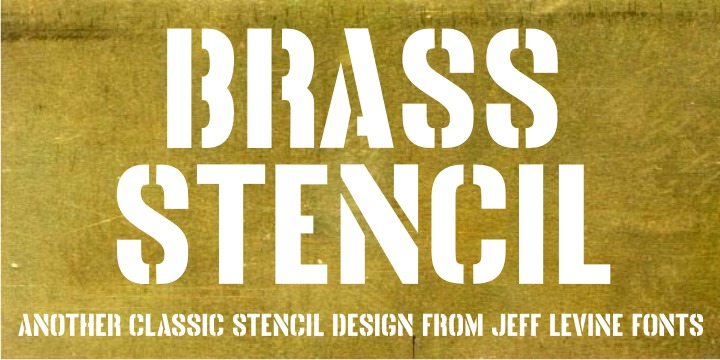
Brass Stencil JNL is a stencil font published by Jeff Levine Fonts.
Brass Stencil JNL takes its place amongst the many retro stencil fonts designed by Jeff Levine, and was inspired by a set of vintage brass stencils spotted for sale in an online auction.